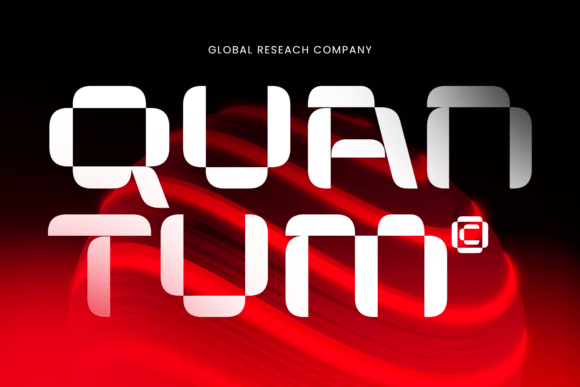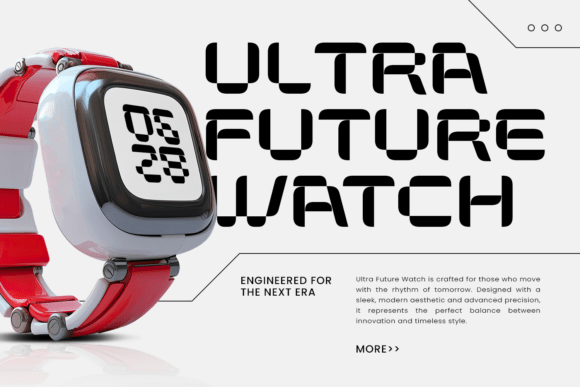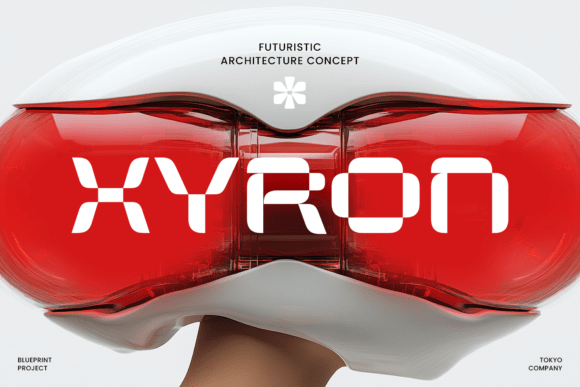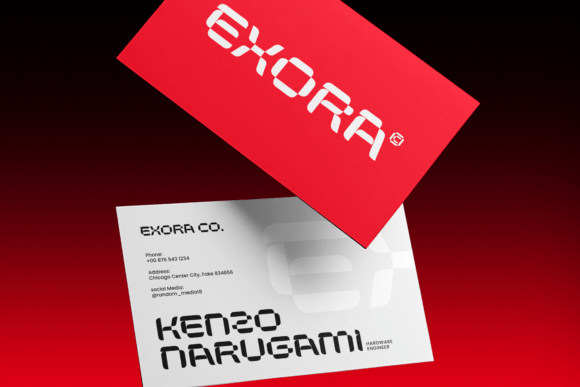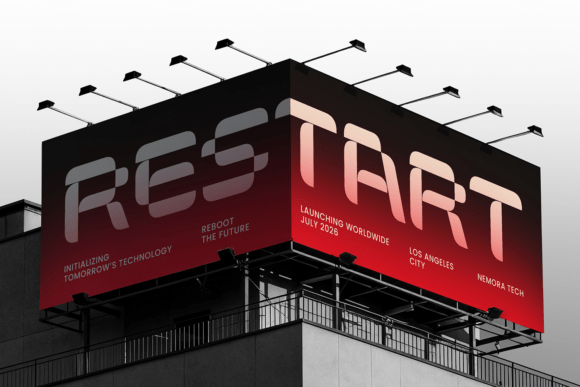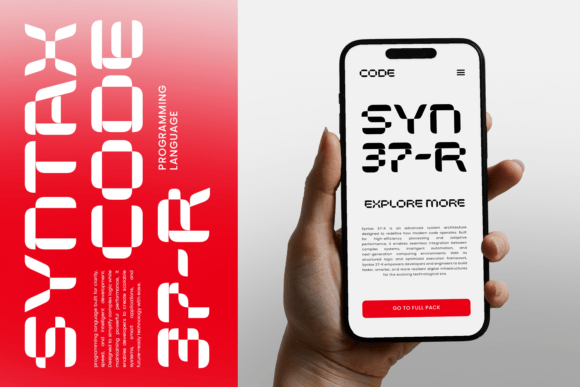
Unleashing the Power of Matrix Squadron Font
Have you ever stared at a blank canvas, wondering how to bring your futuristic sci-fi vision to life? For designers, it’s a familiar creative block. But what if you had the perfect tool to transport your audience to a world of high-tech precision and advanced digital systems? Enter Matrix Squadron Font – a cutting-edge display font designed to fuel your most ambitious projects. With its sharp geometric forms, angular cuts, and streamlined structures, this font embodies the essence of interstellar design.
As a valuable design resource, Matrix Squadron Font offers unparalleled versatility, effortlessly adapting to both minimal layouts and high-impact compositions. Whether you’re working on a tech branding project, gaming title, or UI/UX interface, this font is sure to elevate your creative project to new heights. And the best part? It’s available for a free download, complete with a transparent background, making it the perfect addition to your design arsenal.
- High-quality, vector-based font design ideal for creative projects.
- Features a unique, futuristic aesthetic with a bold and dynamic design.
- Perfect for use in graphic design, digital art, and other creative projects that require a futuristic and edgy look.
Honest Review: Matrix Squadron Font
I recently had the chance to work with the Matrix Squadron Font and I must say, it’s been an interesting experience. This font is perfect for any creative project that requires a touch of futurism and sophistication.
Here are some of the things that work well: ✨ High quality glyphs, ✨ extensive character set, and ✨ smooth lines that make it ideal for digital use.
Here are some potential uses for the Matrix Squadron Font:
- Sci-fi projects
- Futuristic branding
- Video game UI
Overall, I’m impressed with the Matrix Squadron Font and I think it’s a great addition to any designer’s toolkit. It’s a high-quality font that’s perfect for creative projects and can add a touch of sophistication to any design.